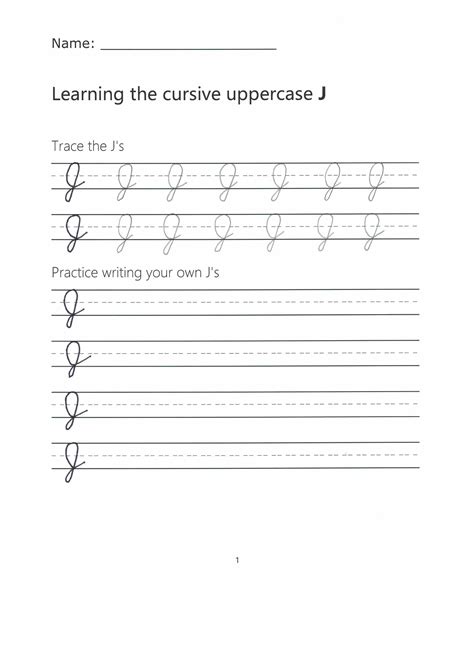
Mastering the art of handwriting is a journey that begins with the fundamental strokes of the alphabet. Among the various characters that challenge beginners and enthusiasts alike, the Cursive J Uppercase stands out due to its elegant loops and its requirement for fluid, rhythmic motion. Whether you are a student refining your penmanship or an adult looking to rediscover the beauty of calligraphy, understanding the structure of this letter is essential for creating a professional and polished script.
The Anatomy of the Cursive J Uppercase
The Cursive J Uppercase is defined by its sweeping movement that transitions from a decorative top stroke into a deep, descending tail. Unlike its lowercase counterpart, the uppercase version is designed to command attention, often serving as the anchor for names, titles, or the start of a beautifully penned sentence. The letter relies heavily on the balance between the initial curve and the length of the descending loop, which typically drops well below the baseline.
To visualize the structure effectively, consider the following key components:
• The Crown: The top of the letter often features a slight flourish or a rounded top that dictates the height of the character.
• The Spine: This is the vertical or slightly slanted stroke that pulls the eye downward through the line.
• The Descender: Perhaps the most iconic part of the Cursive J Uppercase, this loop must be consistent in size and shape to ensure the entire word flows correctly.
Step-by-Step Guide to Perfecting Your Technique
Achieving consistency with a Cursive J Uppercase requires muscle memory. Most beginners struggle because they try to "draw" the letter rather than "write" it. Cursive is about momentum and continuous motion; if you stop your pen halfway through the stroke, the line will look shaky or disjointed.
Follow these steps to master the motion:
1. Start at the top guide line and create a light, rounded curve moving slightly to the right.
2. Bring your pen down in a smooth, vertical motion, maintaining a consistent pressure.
3. As you reach the bottom guide line, begin to curve your pen back to the left, crossing the downward stroke.
4. Loop upward and finish by ensuring the tail of the letter crosses the line exactly at the baseline to prepare for the next letter in your word.
Comparison of Cursive Letter Styles
Not all cursive styles are created equal. The way you write a Cursive J Uppercase can change significantly depending on the school of penmanship you follow. Below is a comparison of different stylistic approaches to help you decide which aesthetic suits your handwriting best.
Style Visual Characteristics Best For
Spencerian Highly decorative, thin lines, dramatic loops. Formal invitations and high-end calligraphy.
Palmer Method Functional, efficient, minimal flourish. Everyday business writing and note-taking.
Modern Calligraphy Variable weight, fluid and organic shape. Creative projects and personal journals.
Common Mistakes to Avoid
Even experienced writers often fall into traps that hinder the readability of their cursive. One of the most common issues is "loop inconsistency." If your loop is too wide, the letter looks like a distorted 'G' or 'Z'; if it is too narrow, it loses its elegant character. Another frequent mistake is neglecting the baseline. A Cursive J Uppercase that floats above or sinks too deeply below the line can make an entire paragraph look disorganized.
To keep your letters looking sharp, keep these tips in mind:
• Avoid "lifting" the pen: Keep your pen in constant contact with the paper to maintain the fluid quality of the script.
• Monitor your grip: A death-grip on your writing instrument will result in jagged lines and hand fatigue. Keep your fingers relaxed.
• Use guidelines: Especially during the early stages of practice, using lined paper will help train your eyes to keep the size of the Cursive J Uppercase uniform.
Integrating the Letter into Daily Writing
Once you feel comfortable with the individual letter, the next phase is connecting it to the rest of the alphabet. In cursive, connections are just as important as the letters themselves. Since the Cursive J Uppercase ends with an upward stroke from the baseline, it is naturally positioned to connect seamlessly to vowels like 'a', 'o', or 'u'.
Practice writing common names or words starting with 'J', such as "James," "Julia," or "Journey." By focusing on the "exit stroke" of the Cursive J Uppercase, you ensure that the transition into the next letter is smooth and instantaneous. This is the secret to moving from "writing letters" to "writing words."